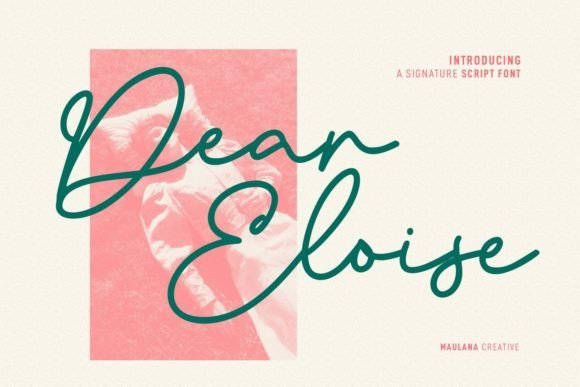
Discover the Magic of Dear Eloise Font
There’s nothing quite like the feeling of scribbling down an idea that’s been buzzing in your head for hours. The scratch of the pen on paper, the eureka moment when it all comes together – it’s a rush that never gets old. And for designers, that rush often starts with the perfect font. That’s where the Dear Eloise Font comes in, a unique fancy signature script font that’s about to become your new best friend.
With its regular mono-line stroke and fun character, the Dear Eloise Font is perfect for adding a touch of whimsy to your designs. Whether you’re working on a logo, social media post, or book title, this font has got you covered. And with its alternates and ligatures, you’ll never run out of creative possibilities.
As a designer, you know how valuable a versatile font can be. The Dear Eloise Font is more than just a pretty face – it’s a tool that can elevate your work and help you stand out from the crowd.
- Unique Characteristics: Whimsical, handwritten style with a mix of uppercase and lowercase letters
Dear Eloise Font Review
At first glance, Dear Eloise Font appears to be a charming and elegant script font. ✨ The flowing connections between letters create a sense of fluidity, making it perfect for invitations, greeting cards, and other handwritten-style designs. ✨ The font’s subtle imperfections and nuances add to its charm, giving it a personal touch that feels unique.
- Unique character: Dear Eloise Font stands out with its distinctive, handwritten feel.
- Good for: Invitations, greeting cards, and any design where a personal touch is needed.
- Highly legible: Despite its script nature, the font remains easy to read.
However, there are some limitations to consider. ⚠️ The font’s connection styles can sometimes be inconsistent, leading to slight variations in letter spacing and overall flow. Additionally, the font may not be the best choice for large blocks of text or formal, professional designs, as it can become overwhelming and difficult to read.
Overall, I would recommend Dear Eloise Font for designers who want to add a touch of personality to their projects. While it may not be the most versatile font, its unique charm and character make it a great choice for the right applications.
Alternatives to Dear Eloise Font
Playfair Display is a high-end serif font designed for luxury branding and sophisticated designs. It’s ideal for creating a sense of elegance and sophistication, making it perfect for high-end fashion, jewelry, and fine dining brands. Compared to Dear Eloise Font, Playfair Display is more formal and less playful, but both share a similar vintage and classic feel.
Great Vibes is a beautiful, elegant script font that’s perfect for creating a sense of romance and whimsy. It’s ideal for wedding invitations, luxury brands, and any design that requires a touch of sophistication and elegance. Compared to Dear Eloise Font, Great Vibes is more elegant and refined, but both share a similar vintage and classic feel.